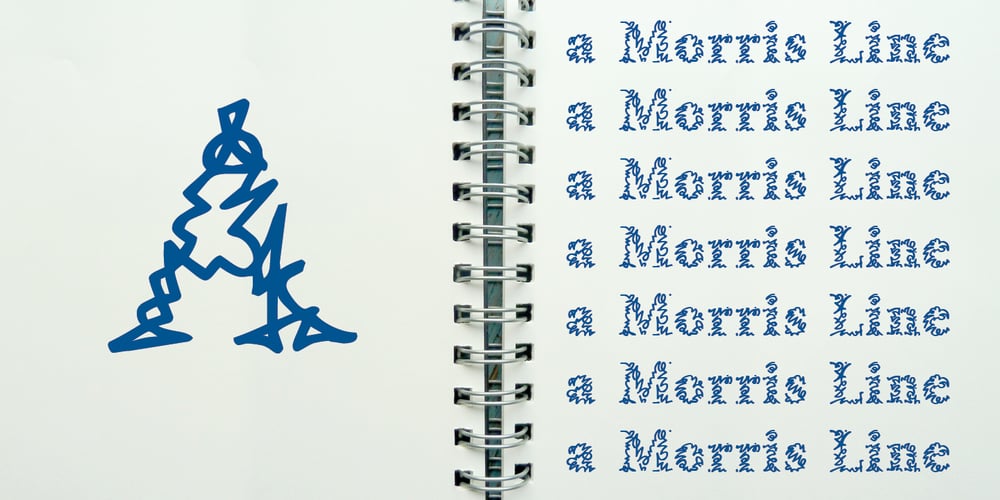
a Morris line
a Morris line font
a Morris line Font Family was designed by Jeroen “Joebob” van der Ham and published by JOEBOB graphics. a Morris line contains 1 styles and family package options. Here’s a Morris line; a traditional and legible font in small sizes, but almost abstract in big sizes. Named after my son Morris and it’s got nothing to do with a certain musical…